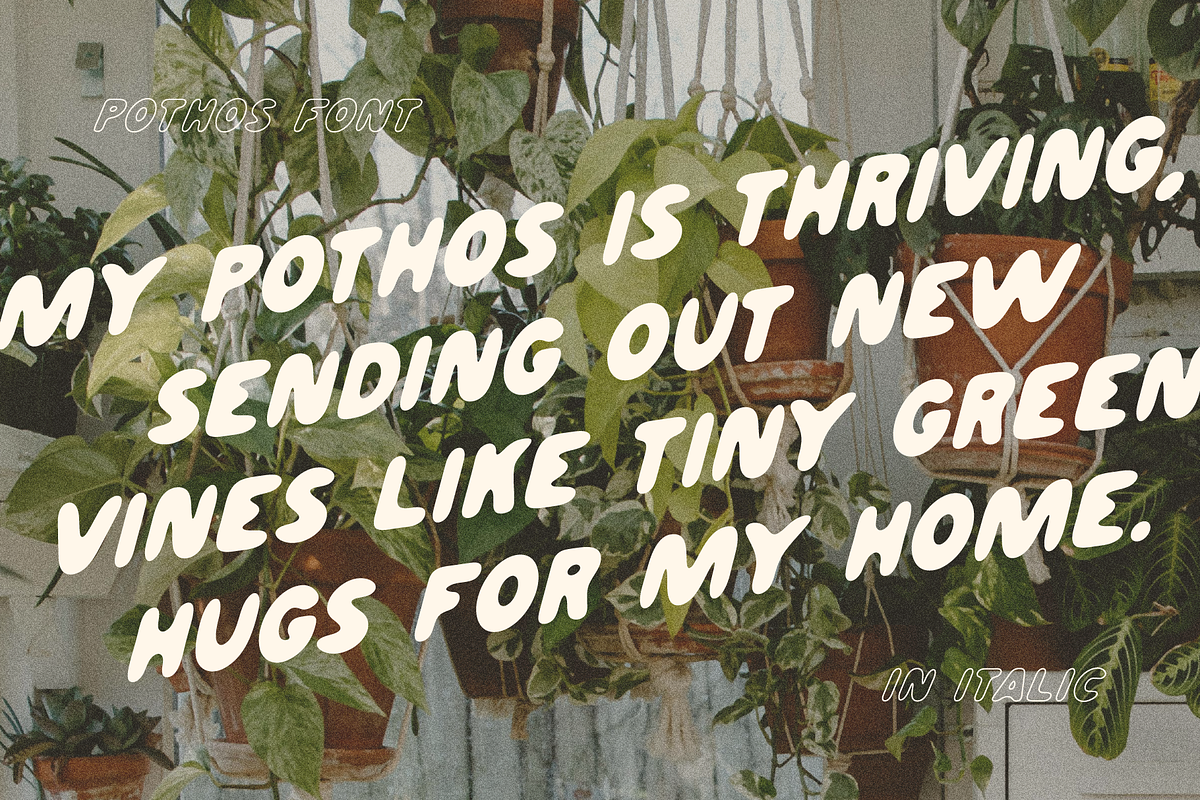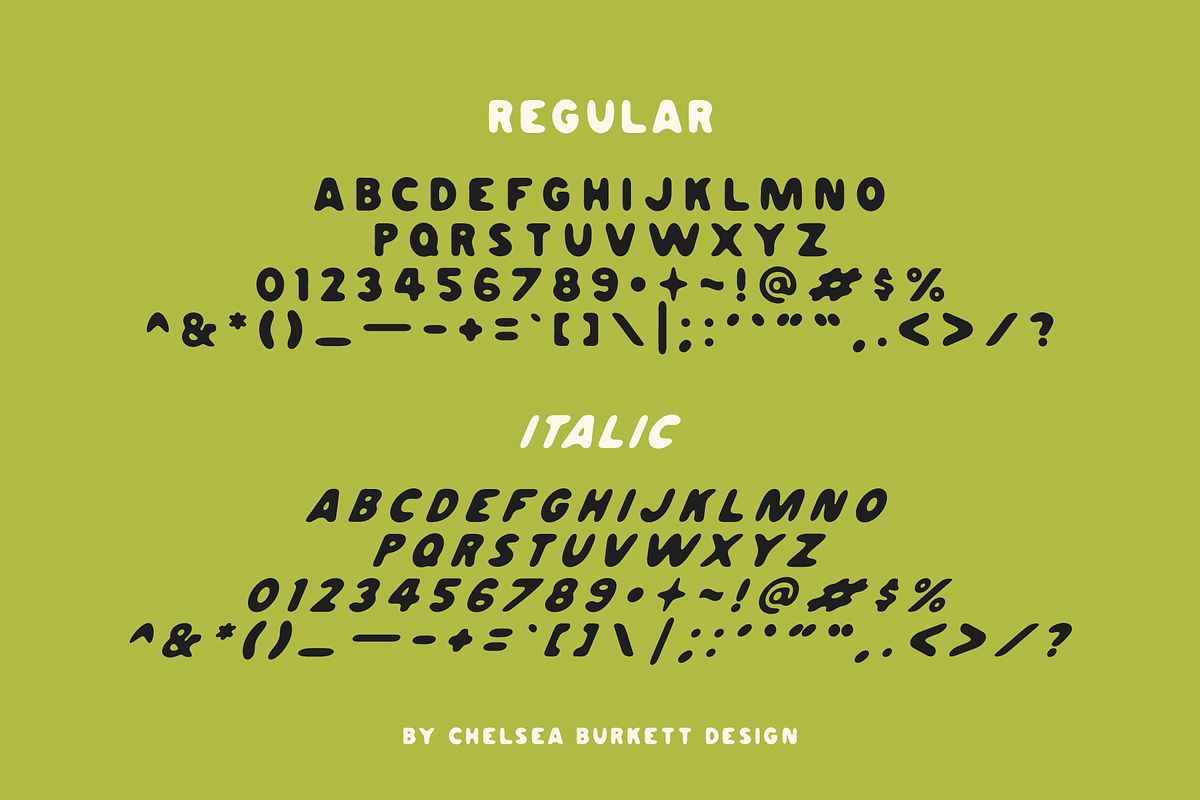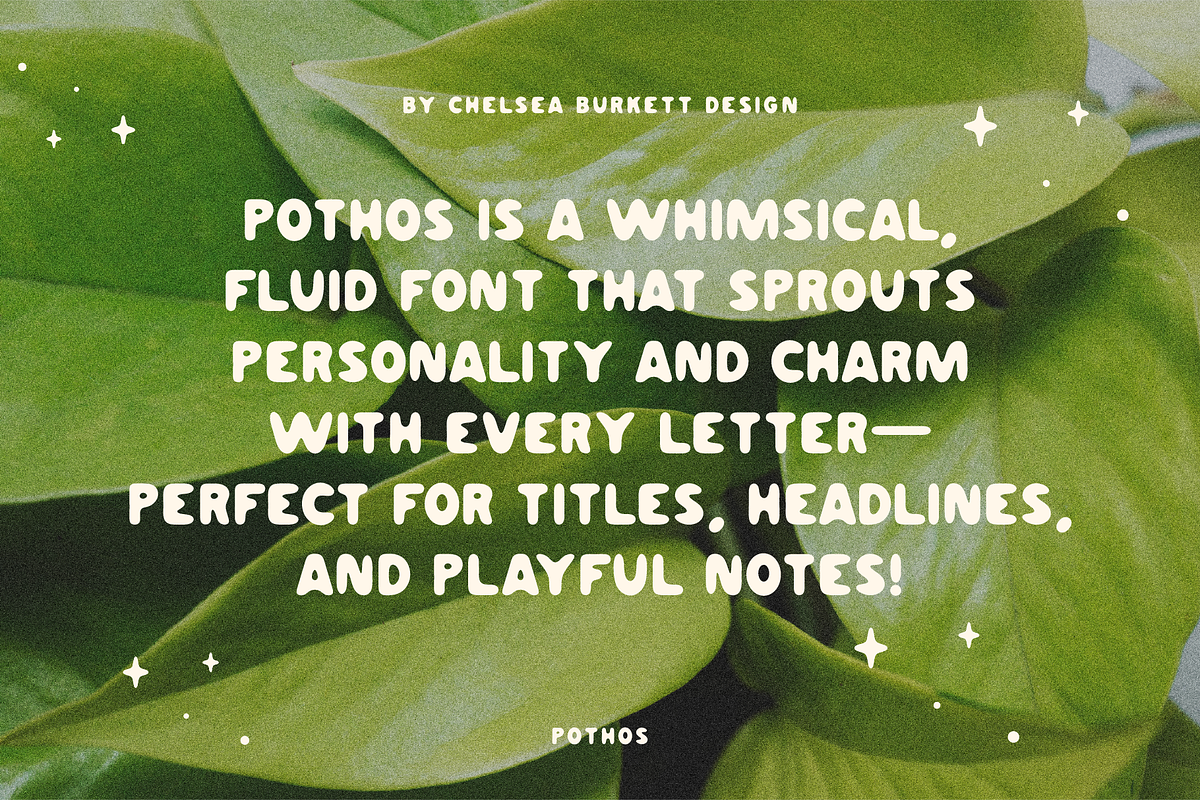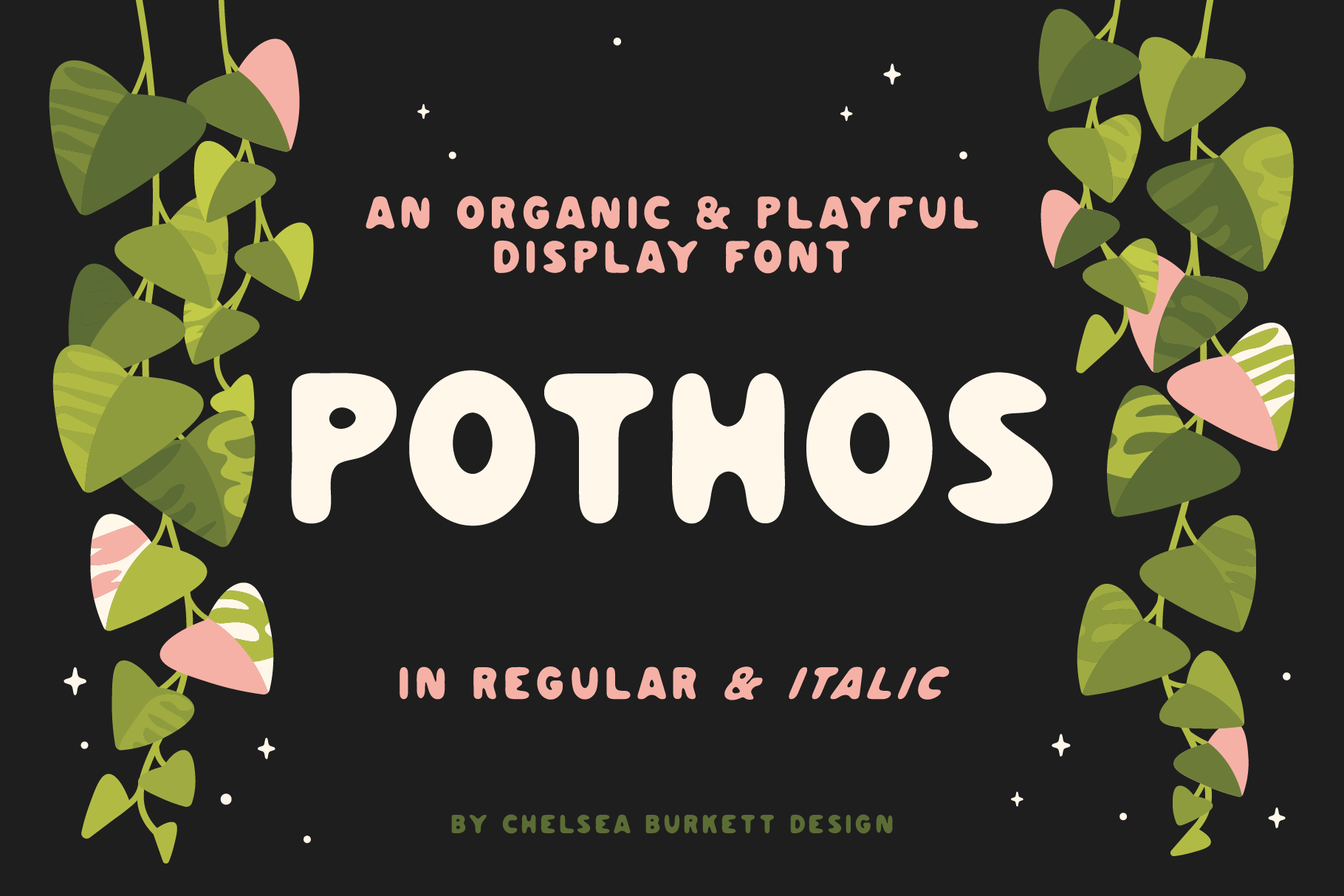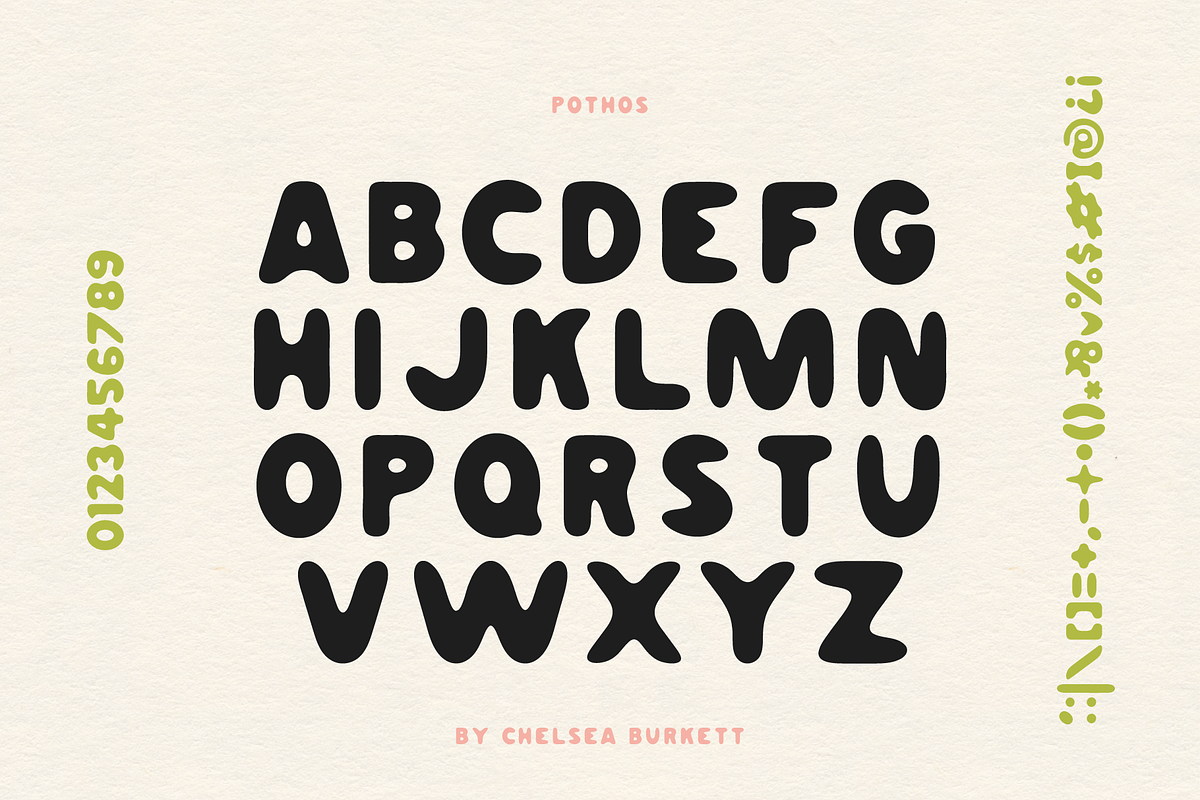
Pothos Font
Pothos is a whimsical, fluid font that sprouts personality and charm with every letter—perfect for titles, headlines, and playful notes!
Pothos is created in both regular and Italic styles.